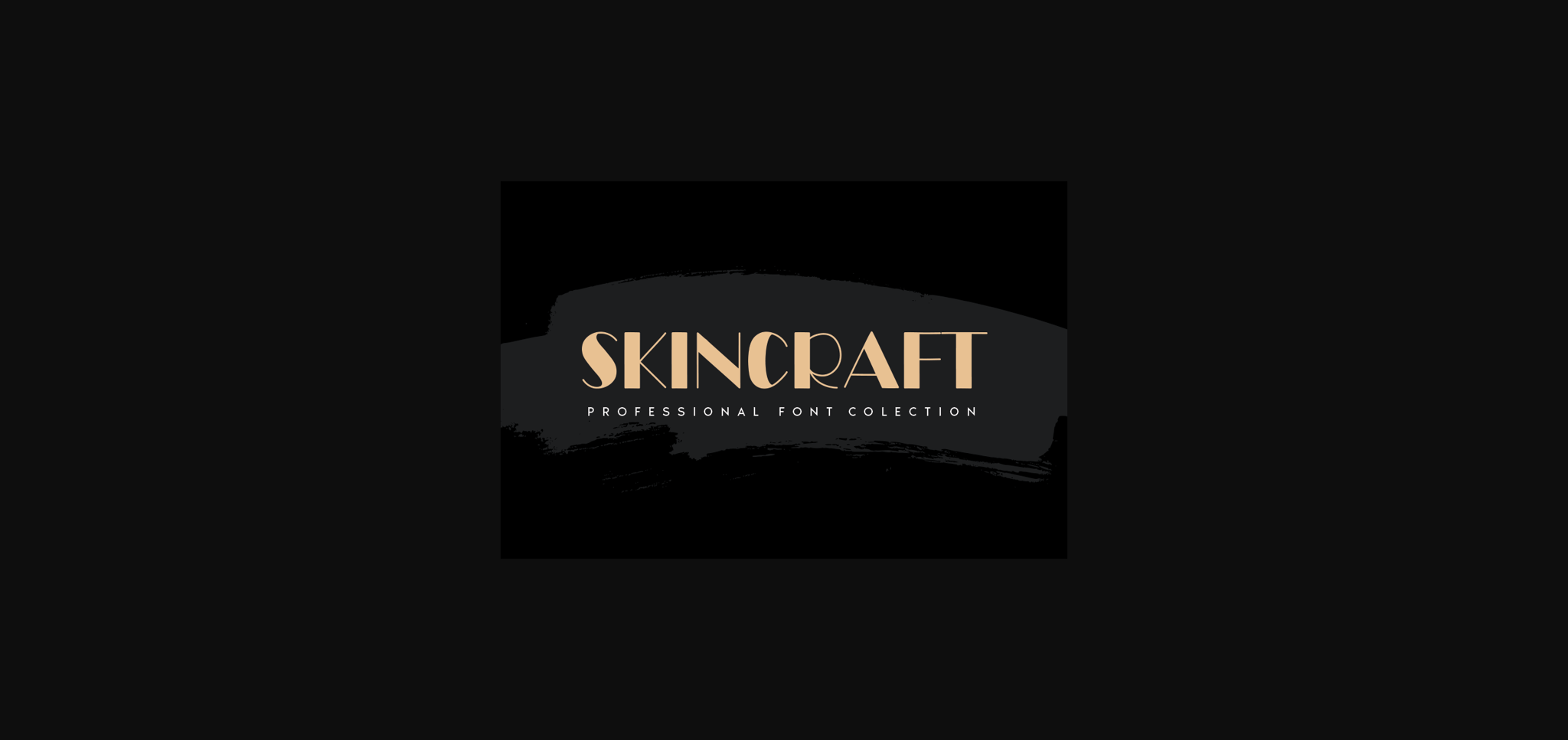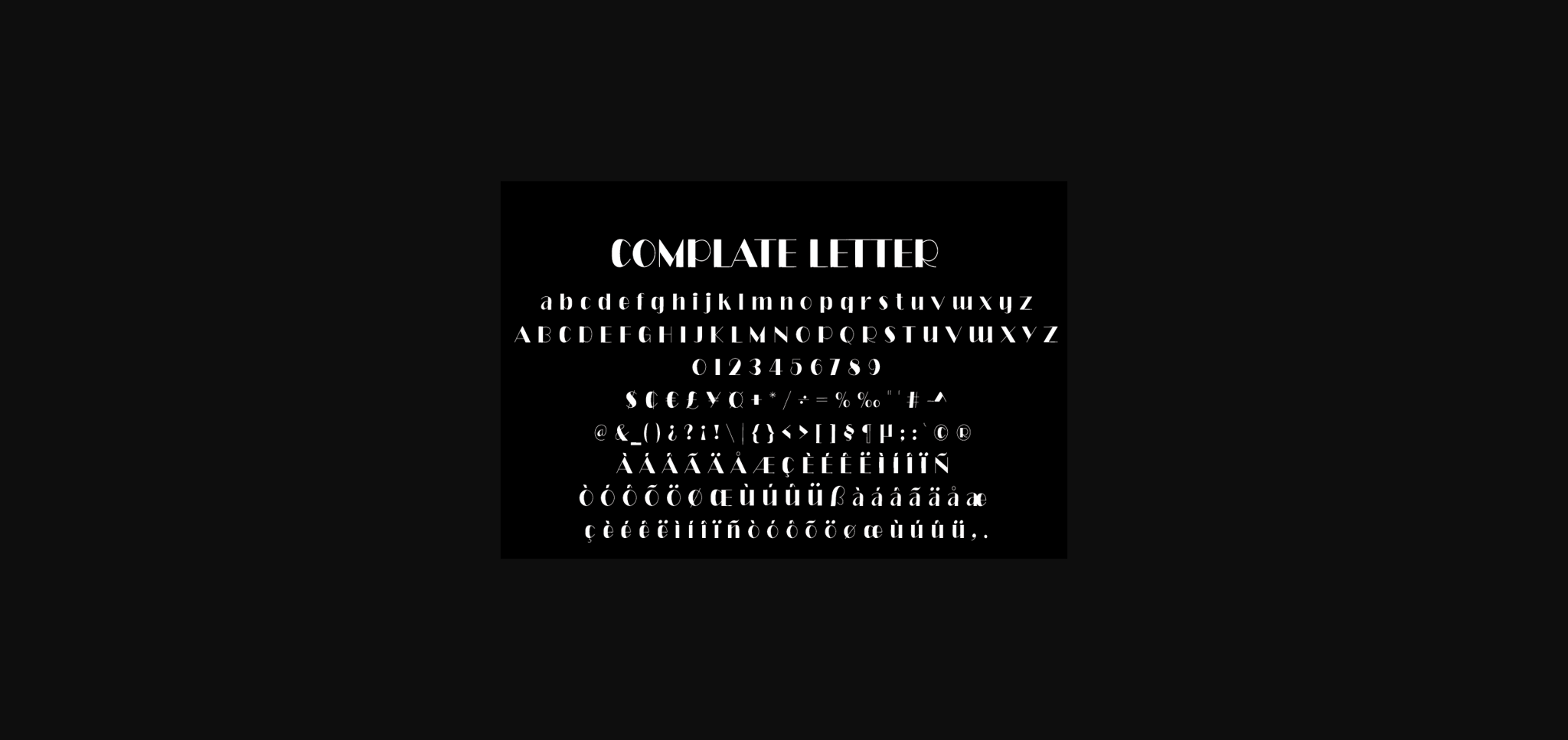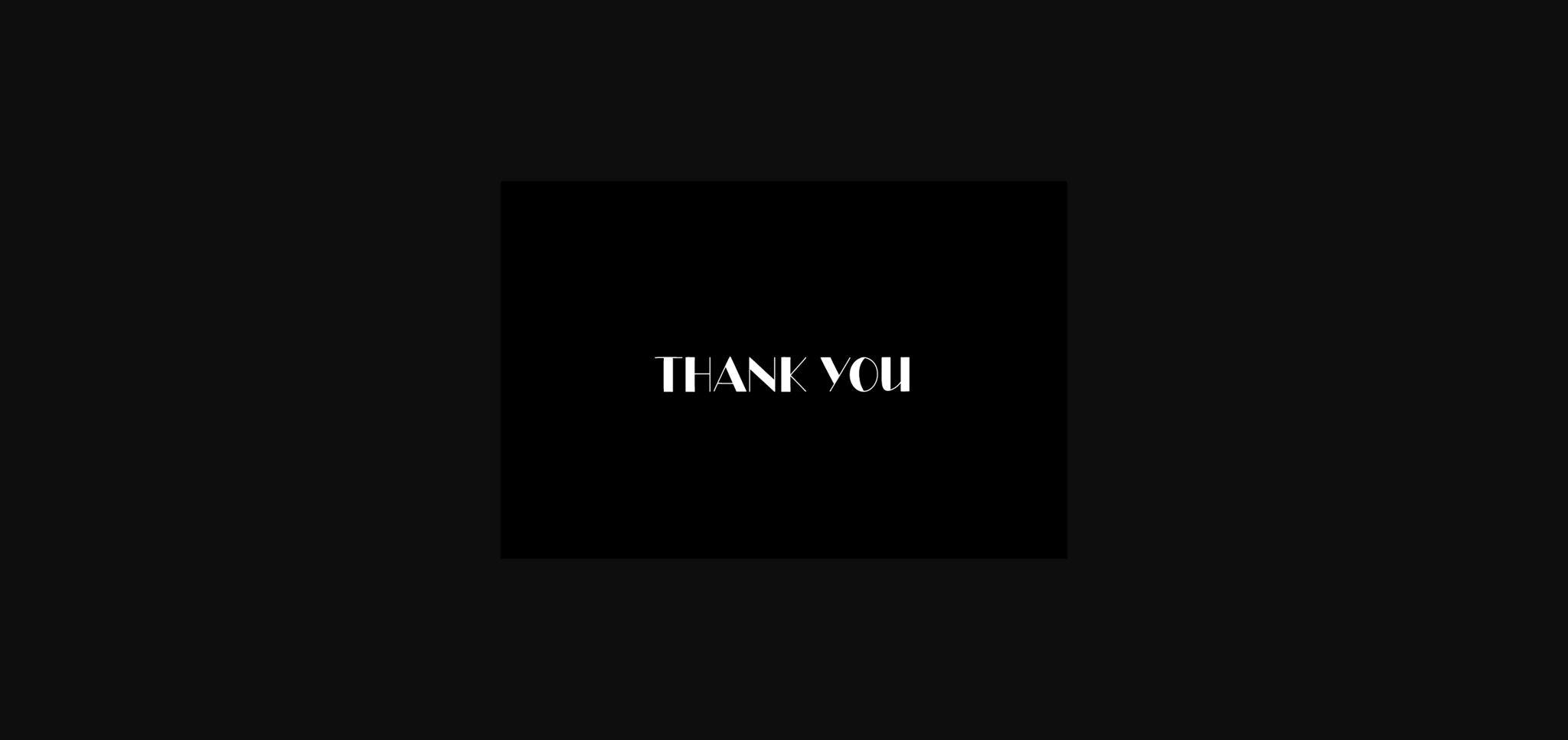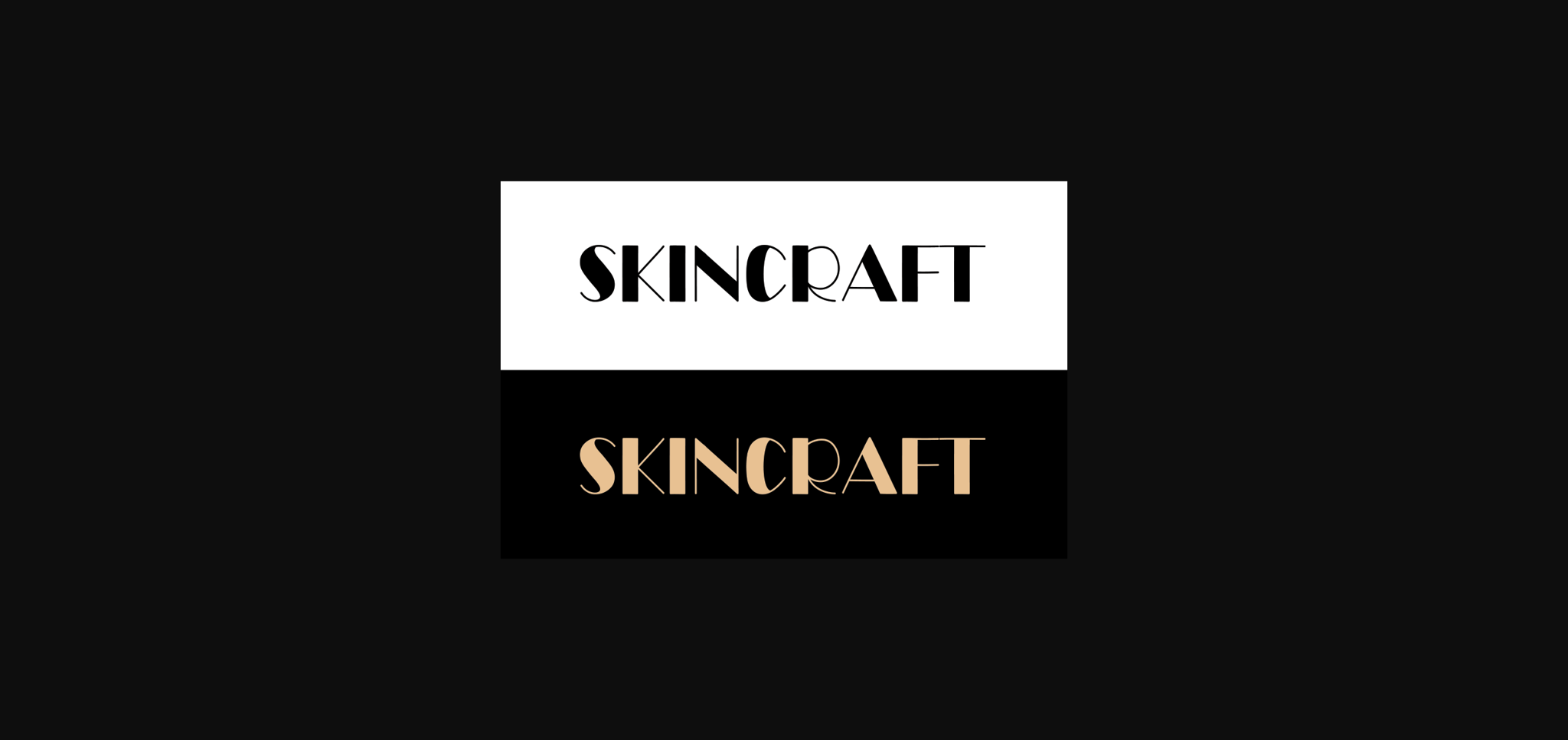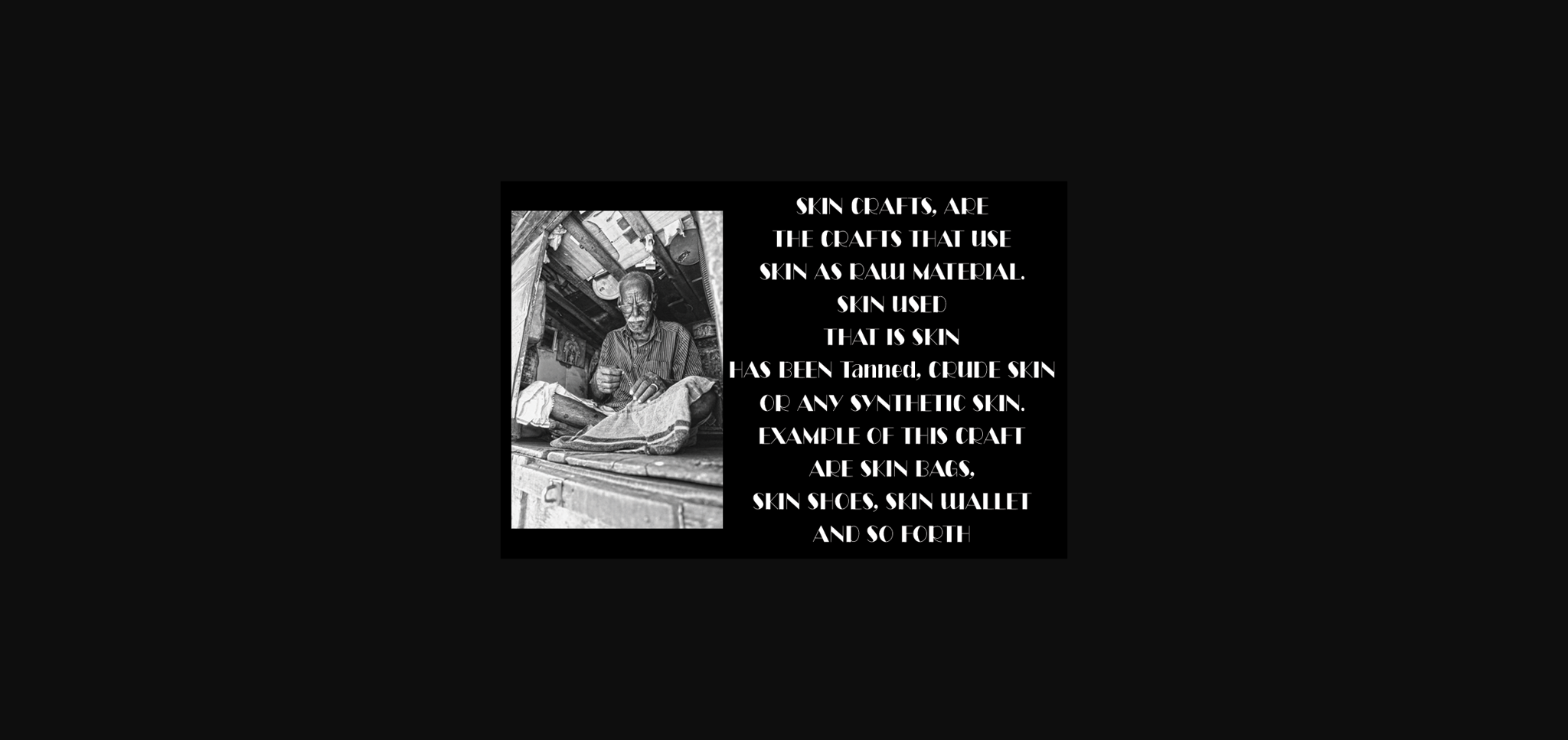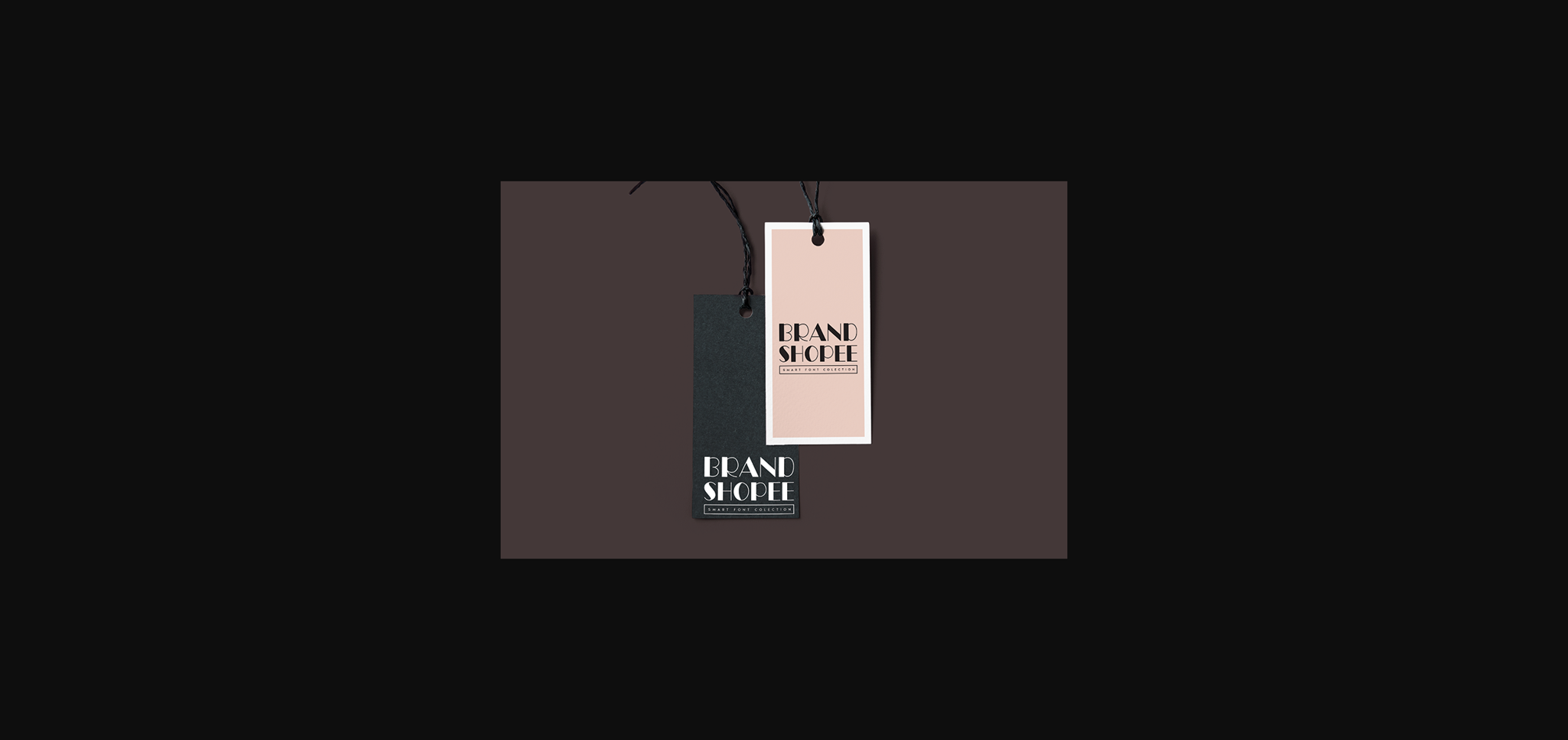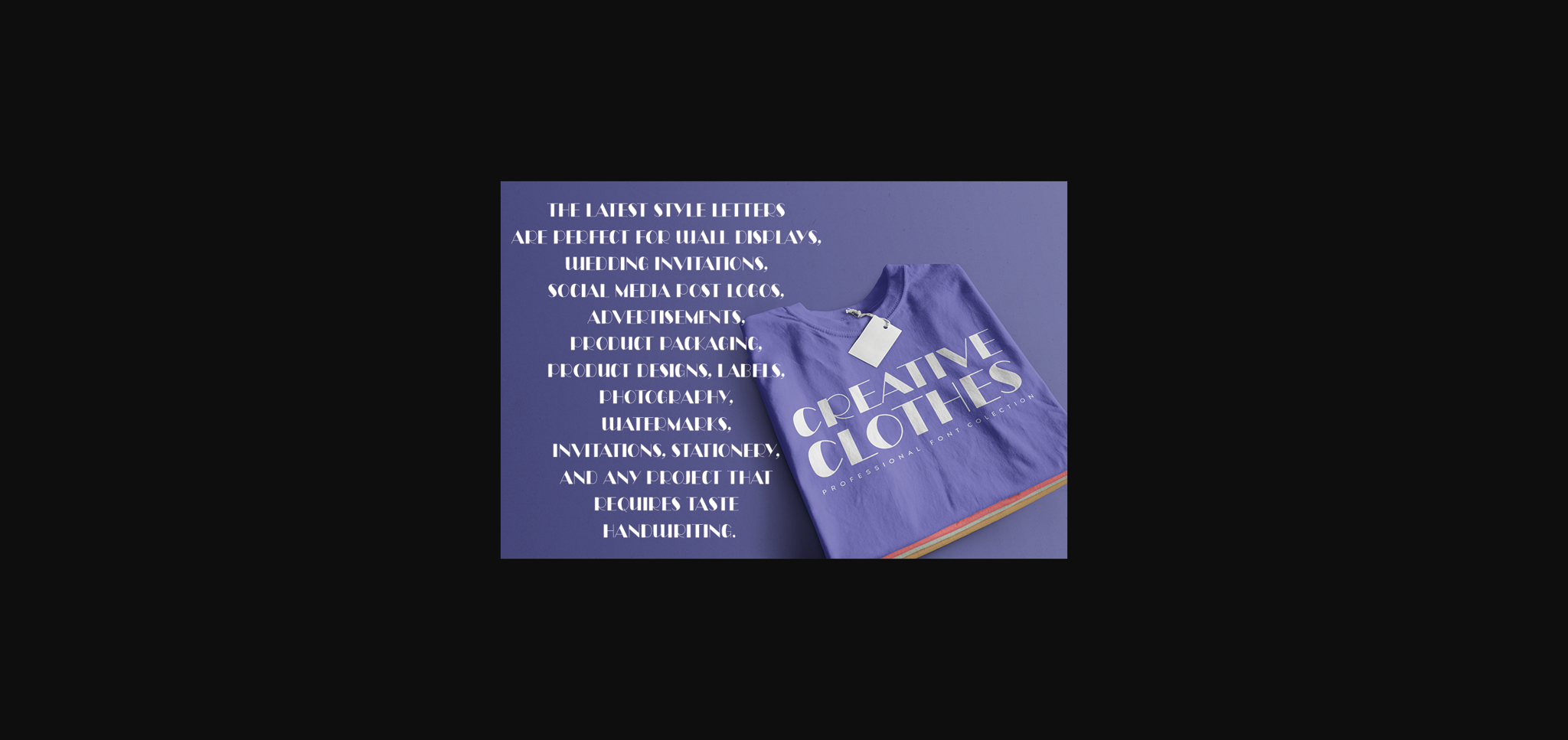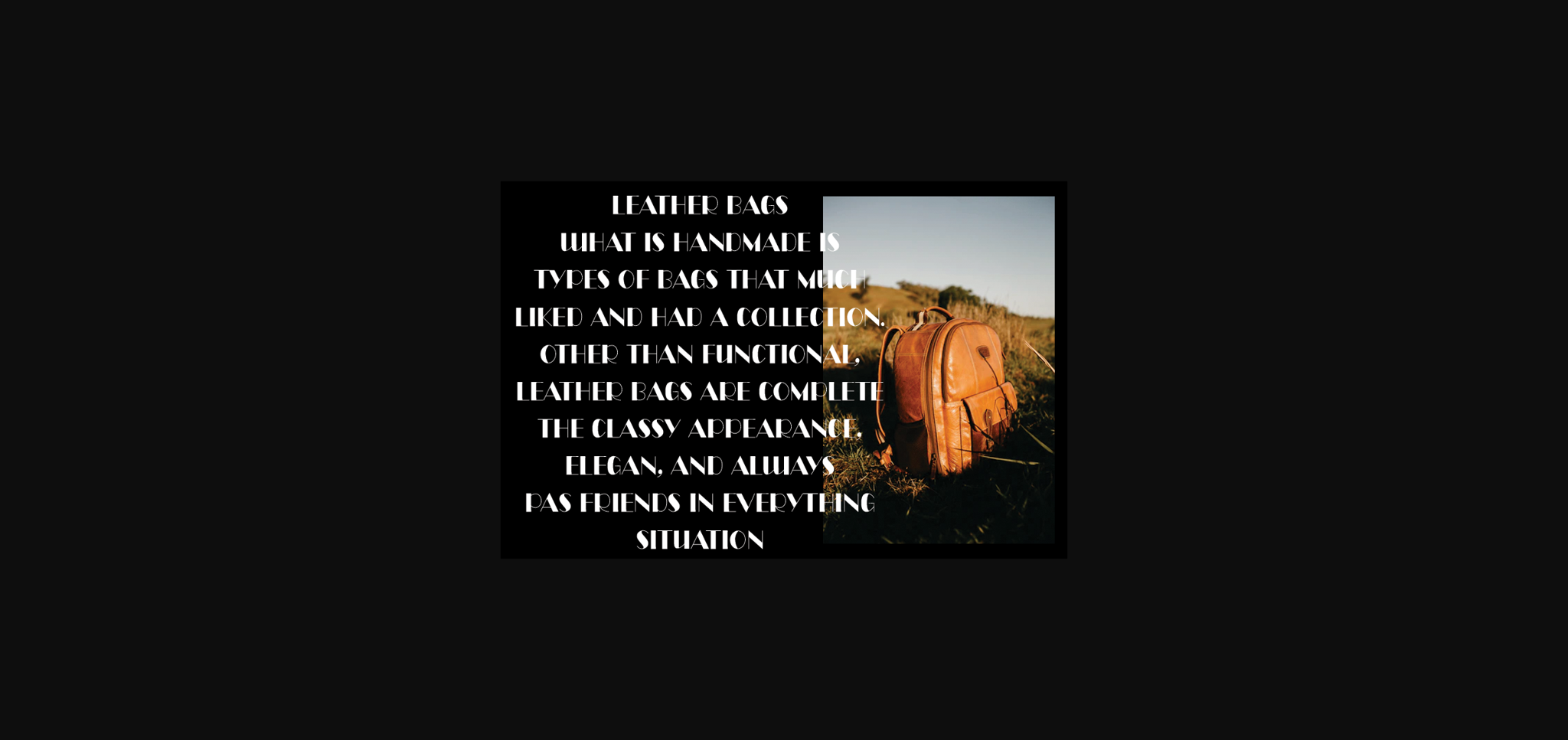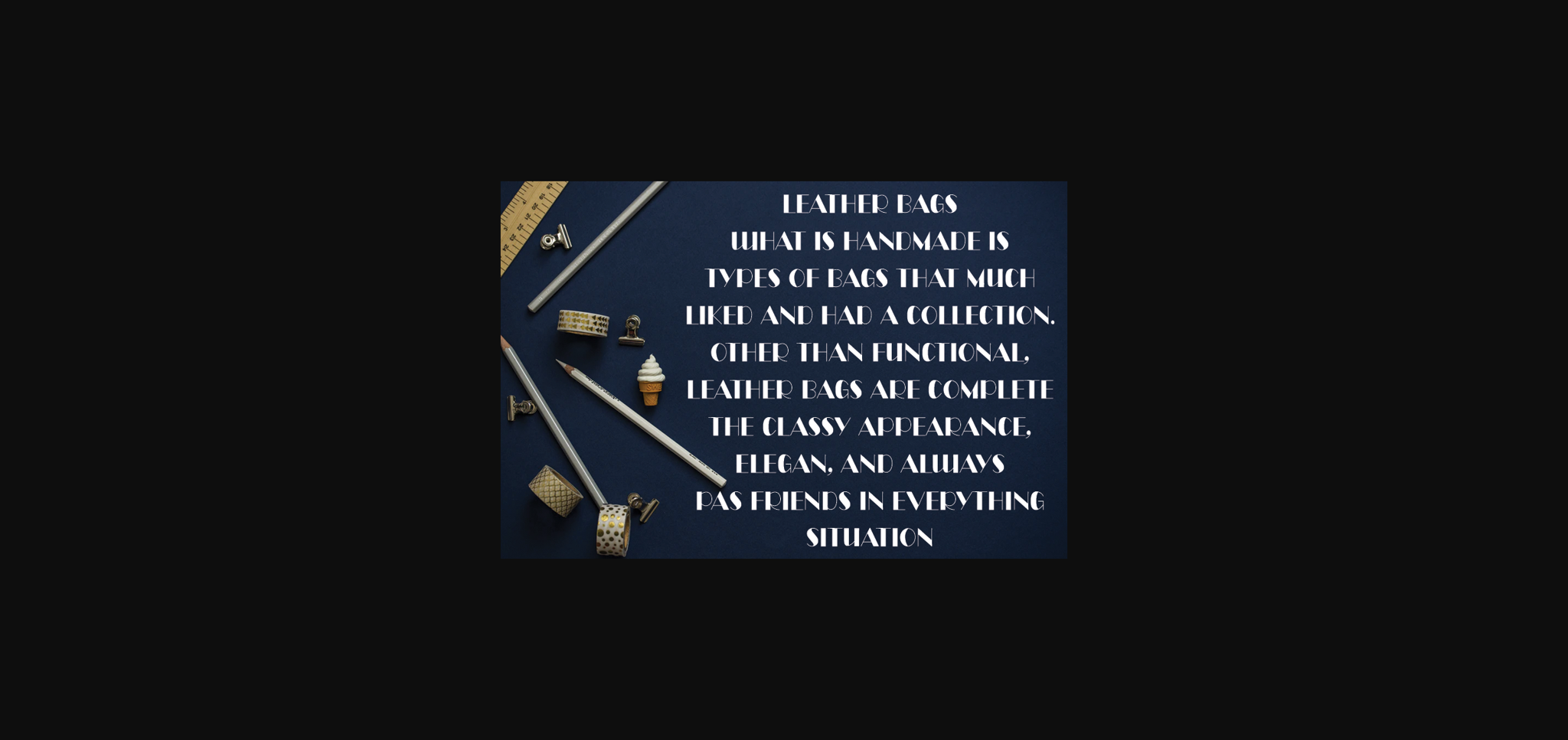
Skincraft Font
About Skincraft Font
Skincraft is a minimal, yet elegant and unique sans serif font. Suitable to a wide variety of designs due to its neat and simple style, Skincraft has the potential to become your favorite go-to font, no matter the occasion!